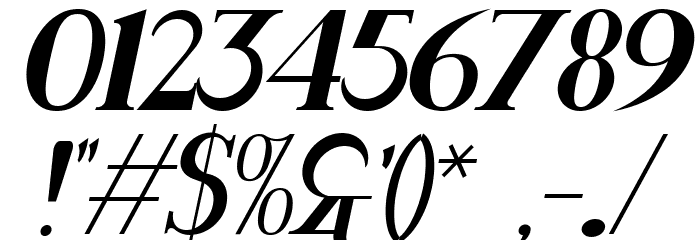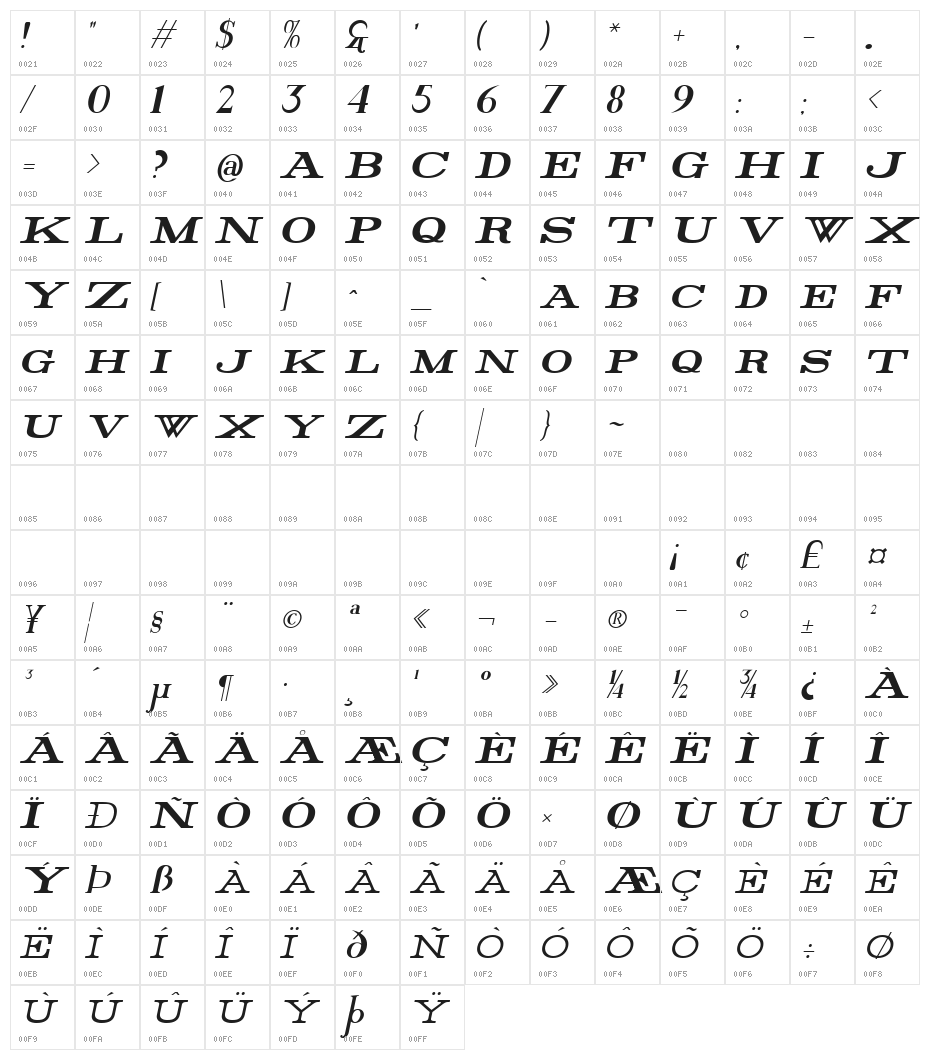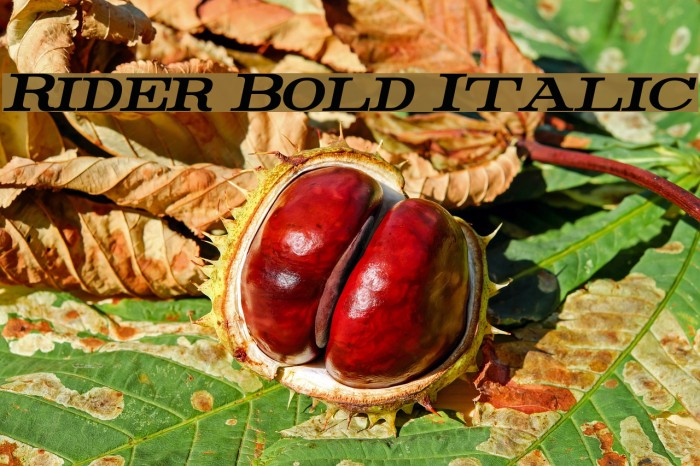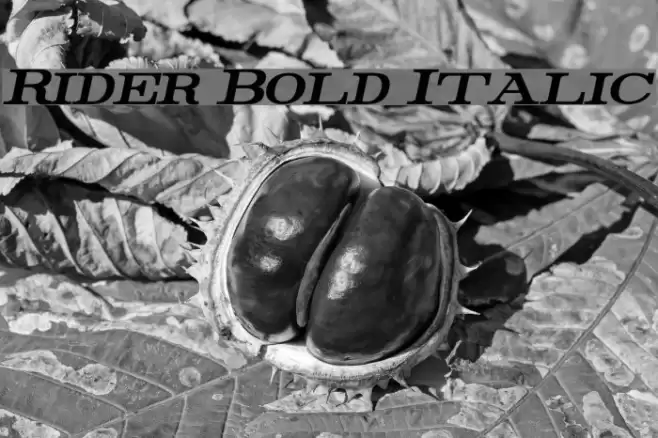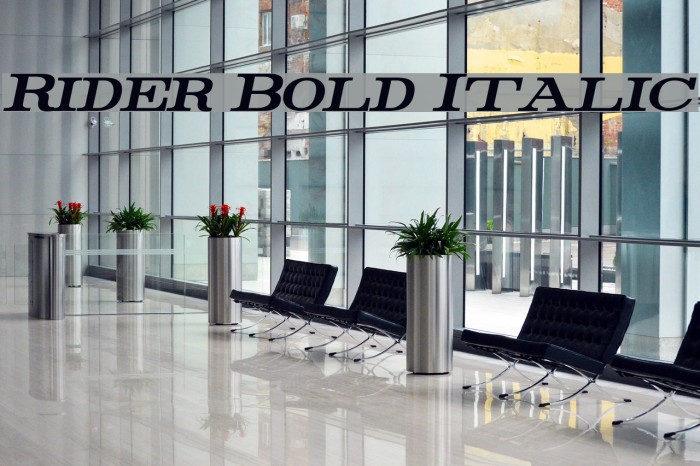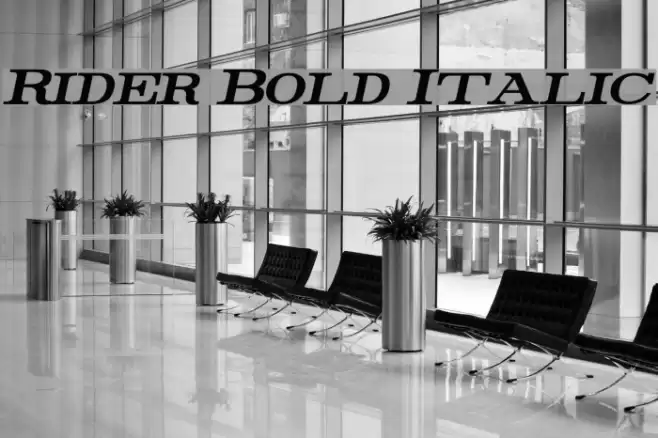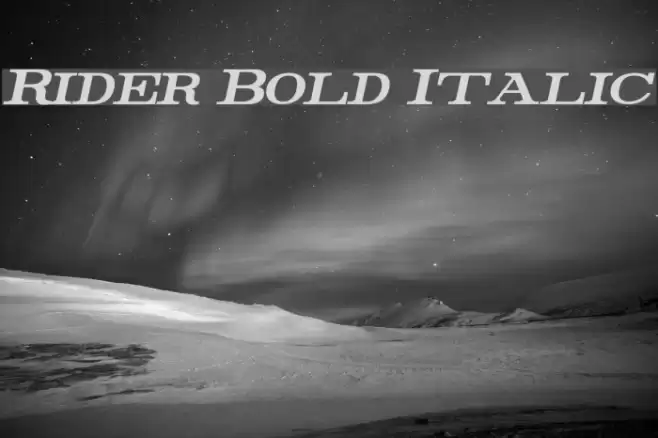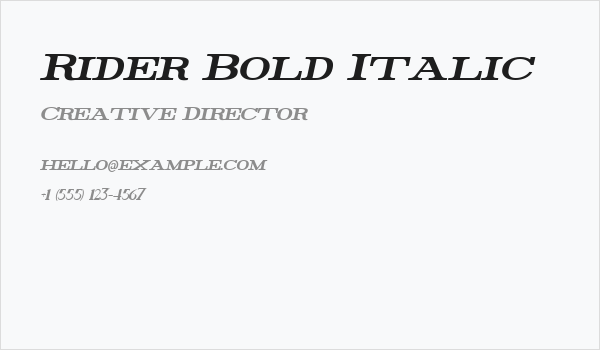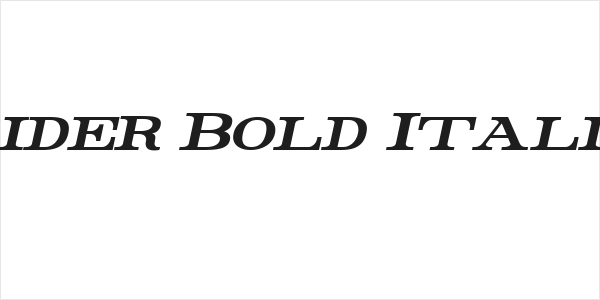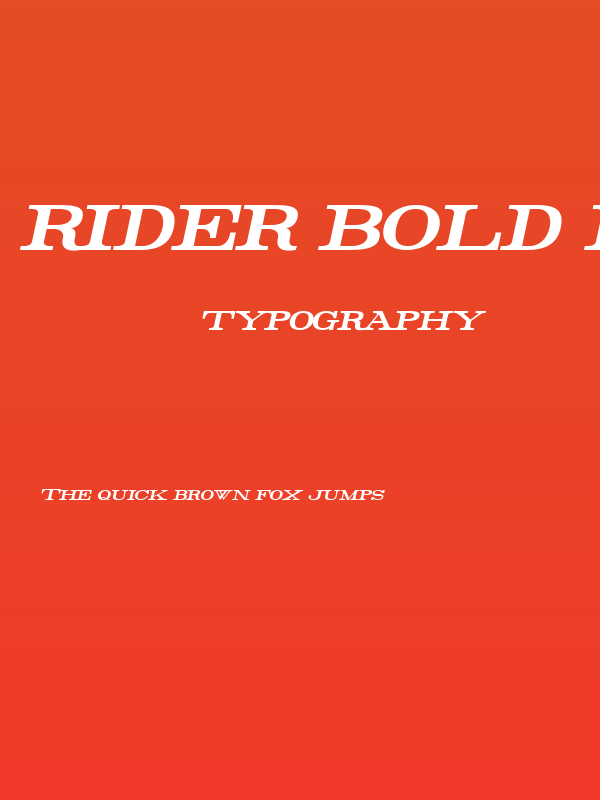
Rider Bold Italic Font
Rider Bold Italic Description
This font exhibits a bold and italicized style, characterized by its strong and dynamic presence. The uppercase letters are sharply defined with a slight slant, enhancing the italic effect. The numerals are equally bold, maintaining consistency with the overall design. Special characters are distinct and well-integrated, providing versatility for various uses. The font's boldness is complemented by its italic nature, making it suitable for impactful headlines and attention-grabbing text. The strokes are thick, contributing to a high contrast that emphasizes its boldness. This font is ideal for projects that require a strong visual impact, such as branding, advertising, and editorial design.